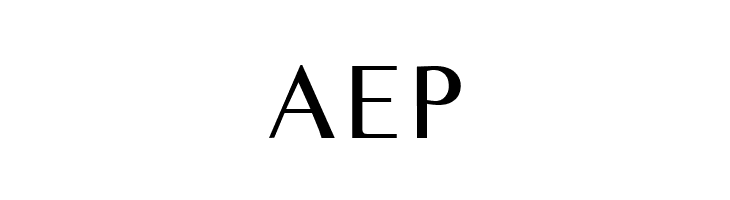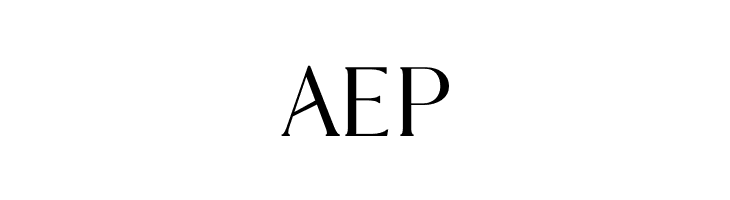
A thin, elongated serif font with a modern yet classic style.
A classic serif font with elegant, sharp serifs and balanced stroke contrast.
A refined serif font with elegant, thin strokes and a timeless aesthetic.